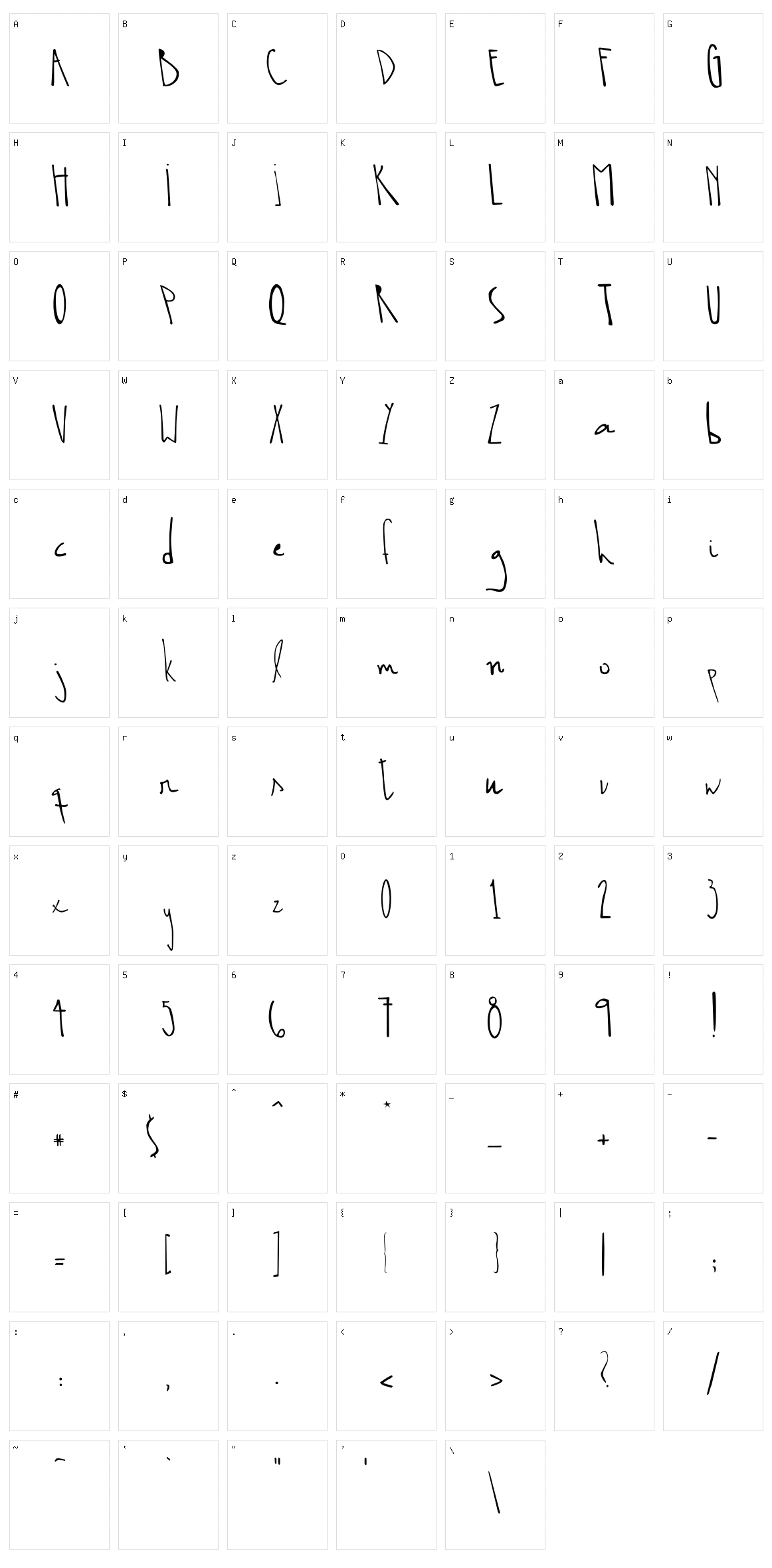
The free font Biasans is carefully designed by Beatriz Loducca, showcasing a thoughtful balance of creativity and usability and falls under the Script font style. When you download the ZIP file, it contains only 17.01 KB of font files, making it lightweight and quick to download. Please review the license details below to understand permitted usage and distribution rights. If license information is not available, we recommend using this font for personal projects only or contacting the author directly for commercial usage permissions.